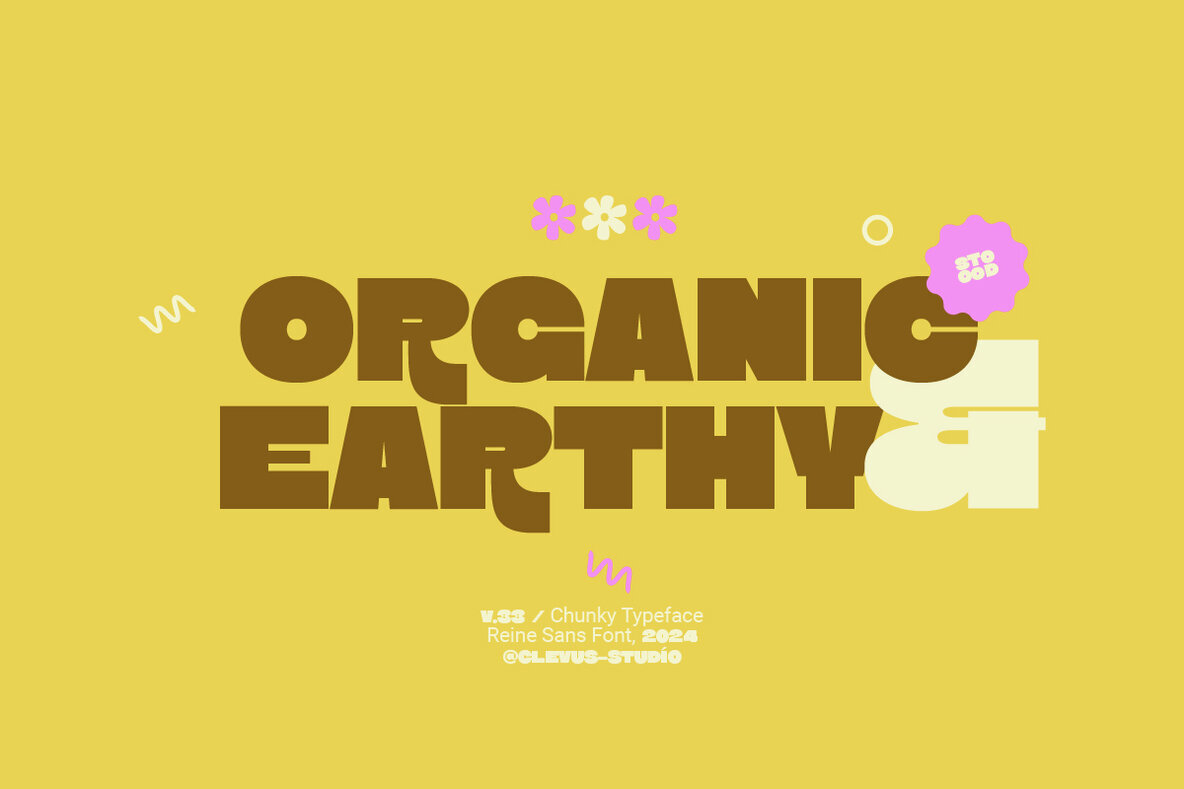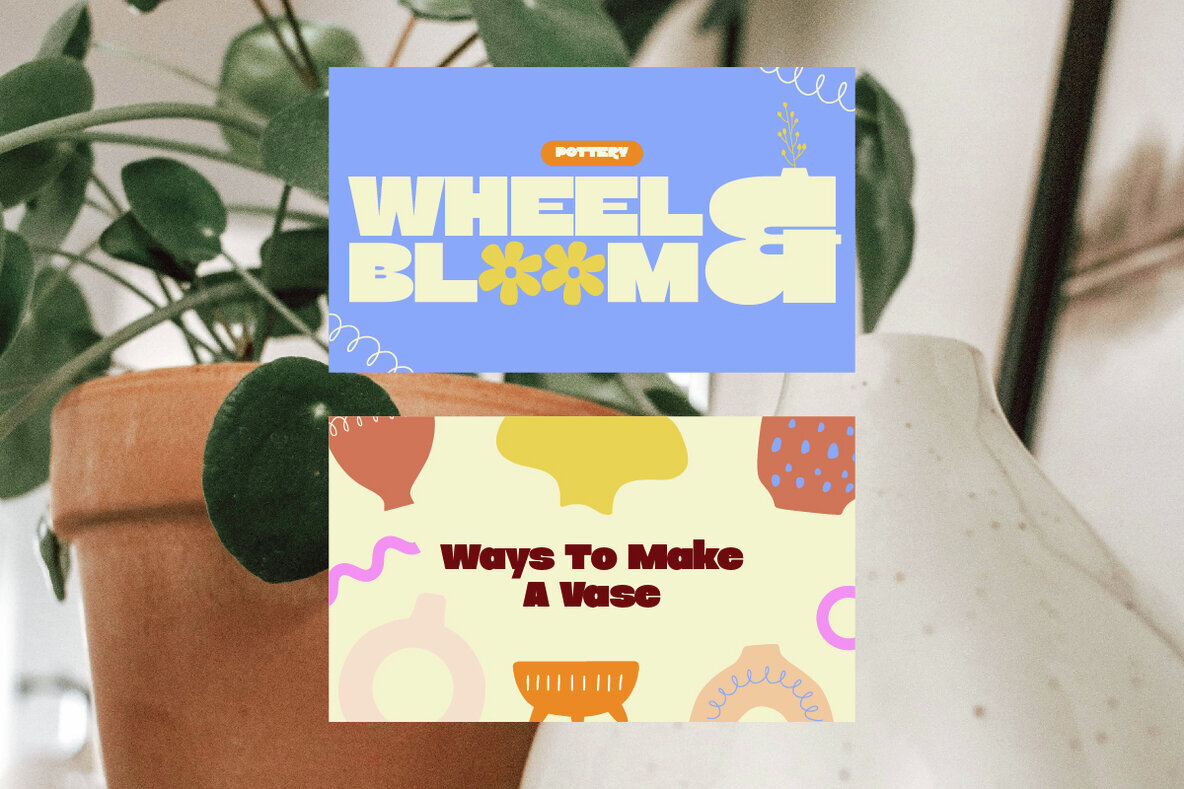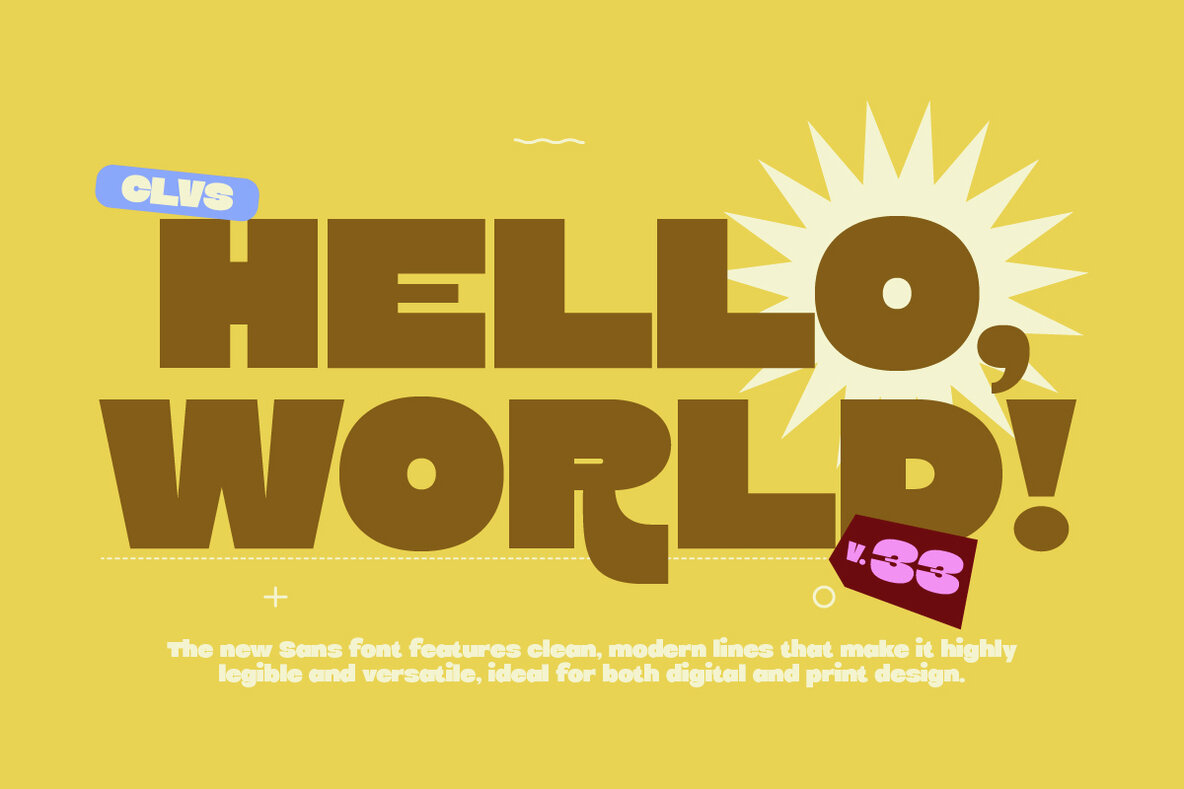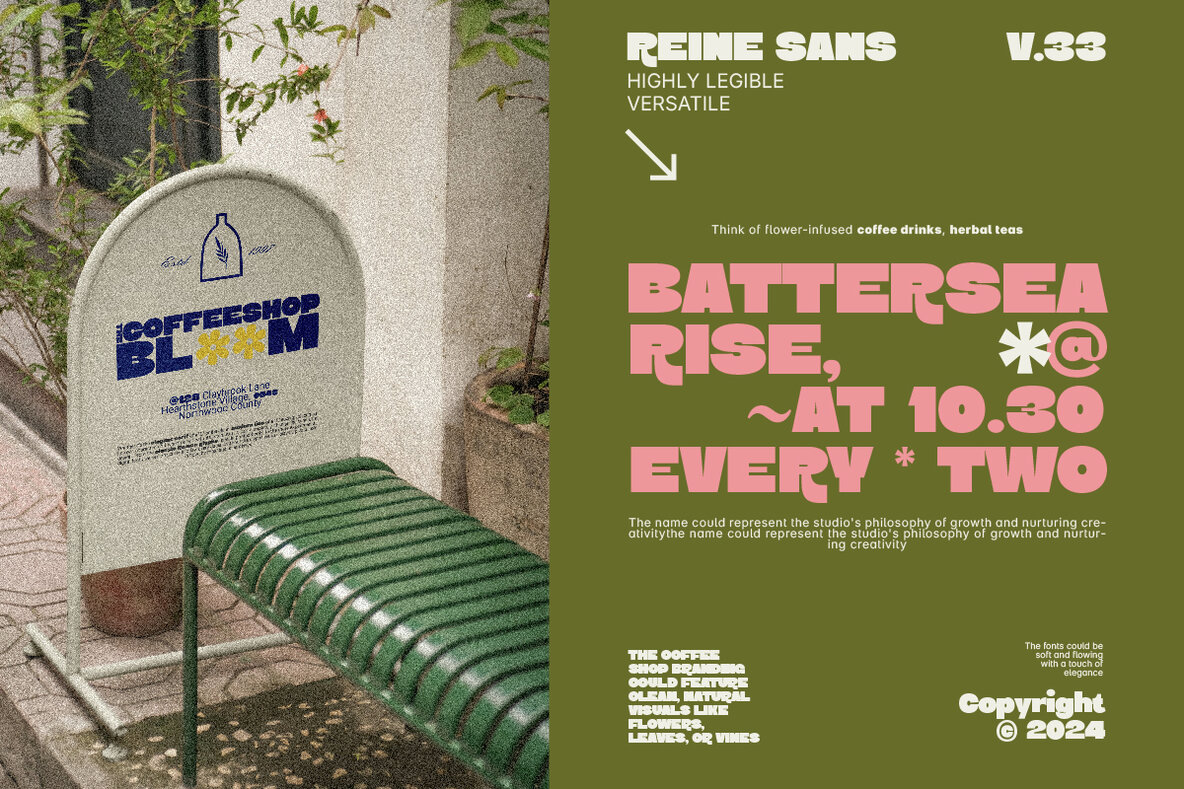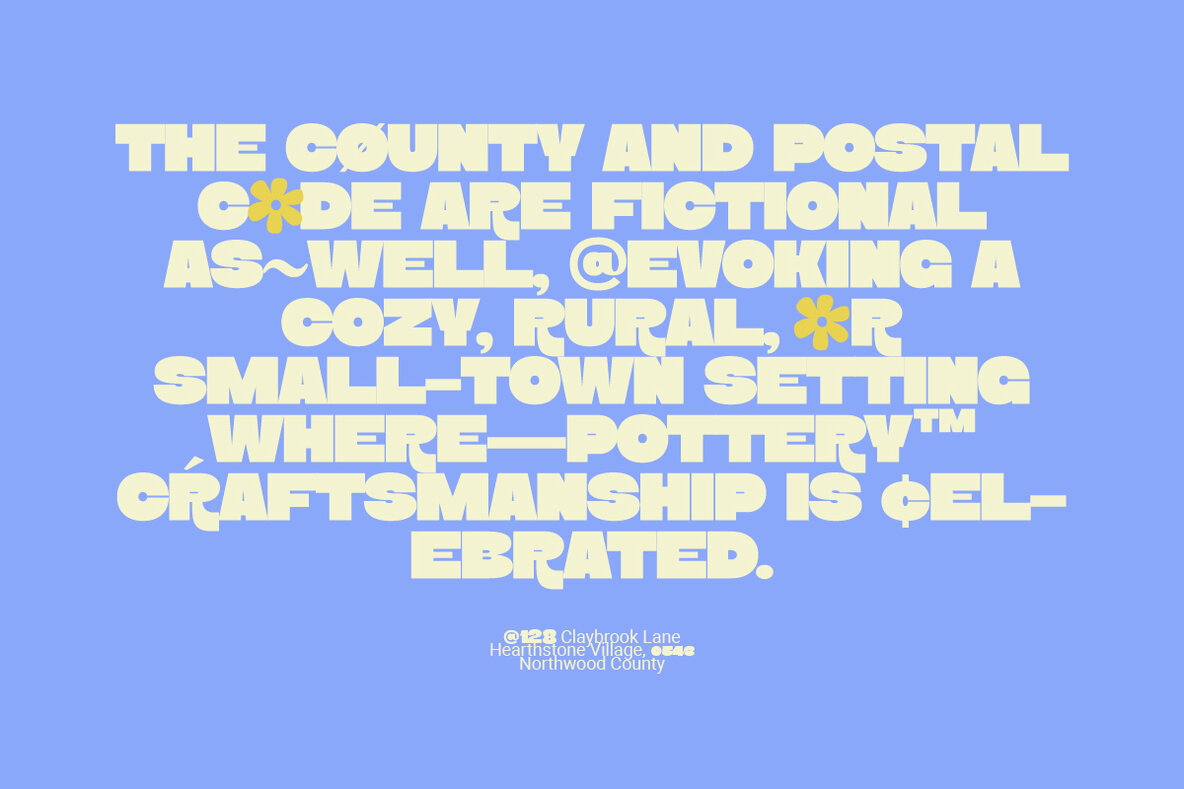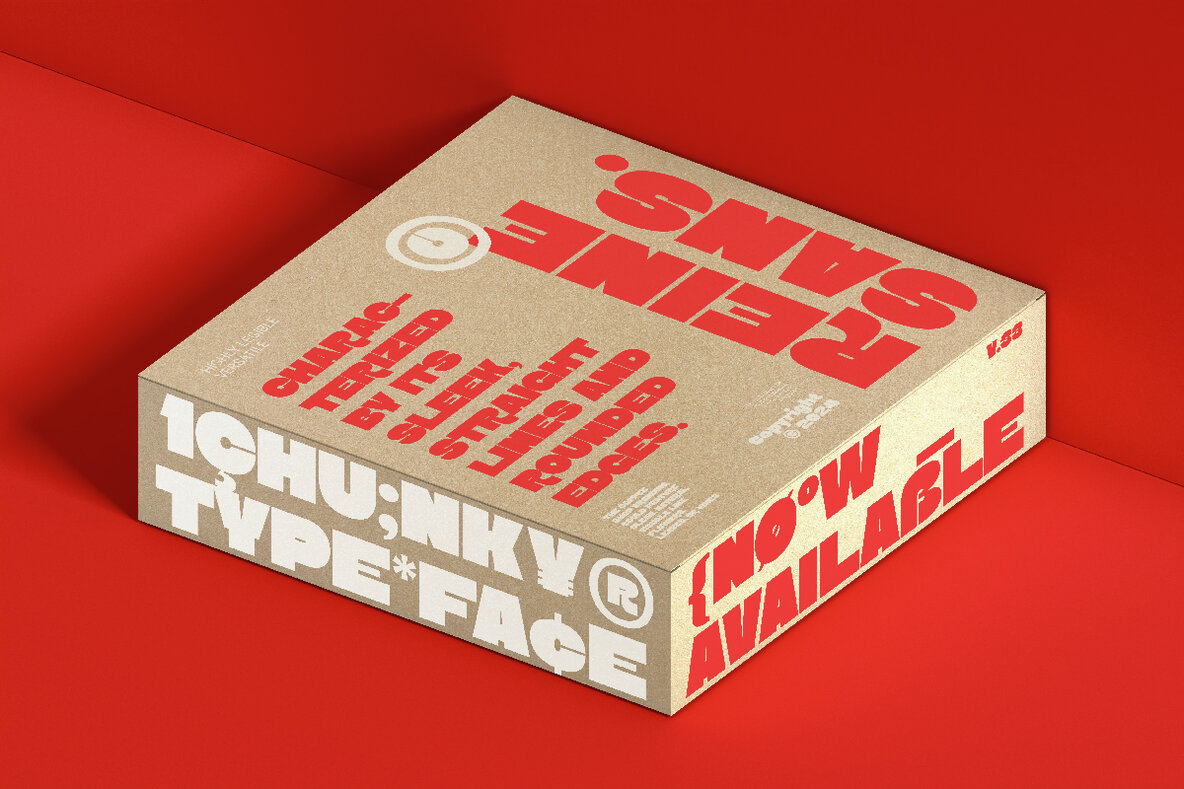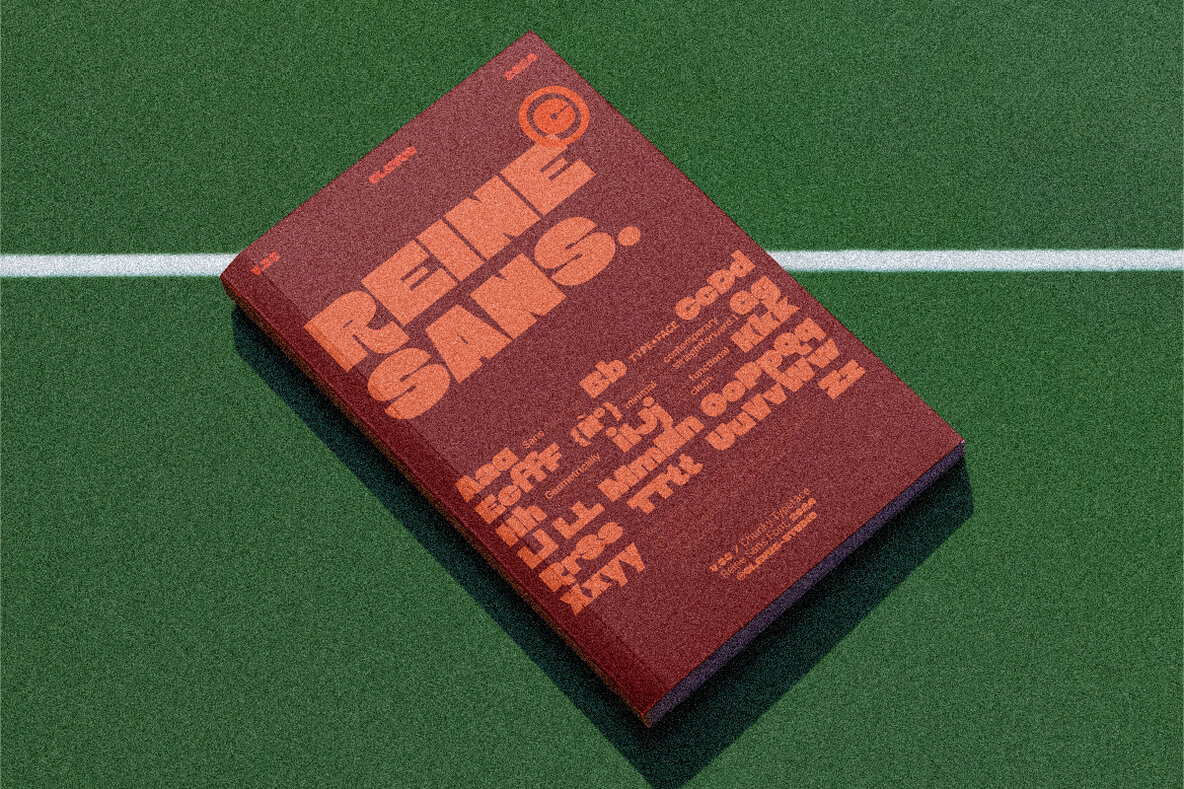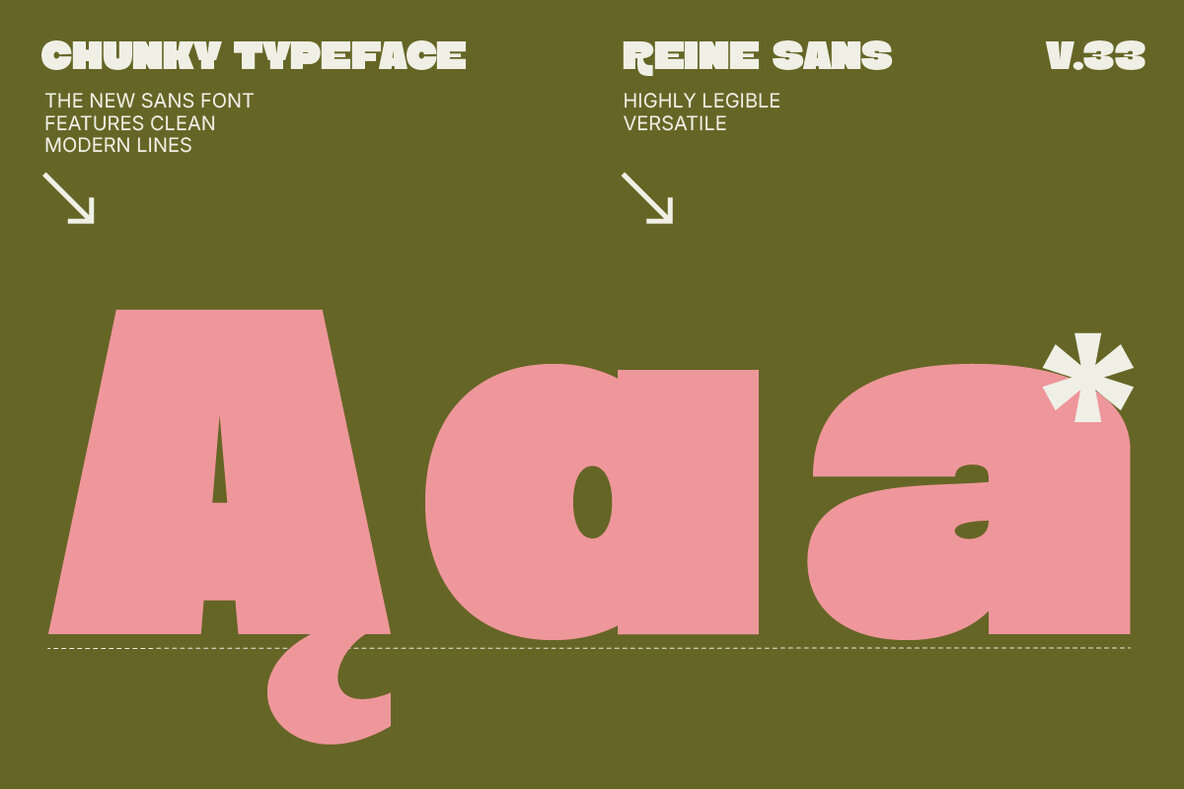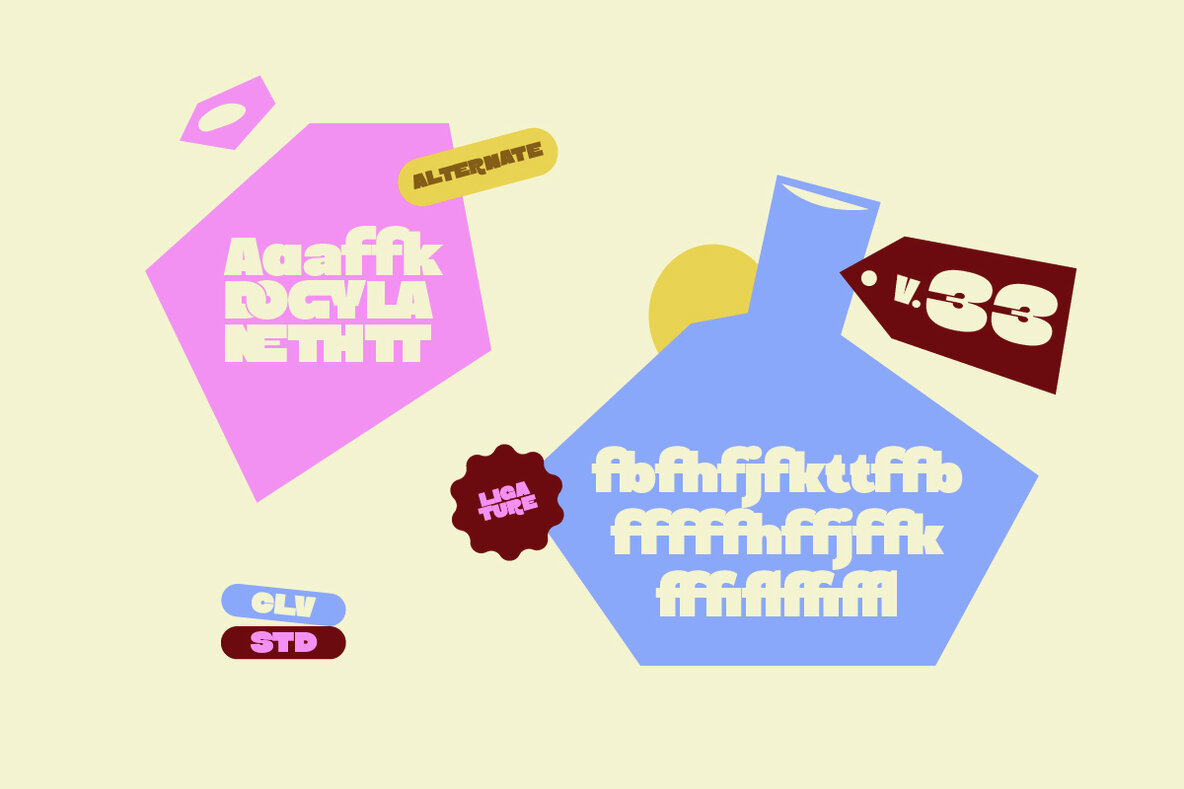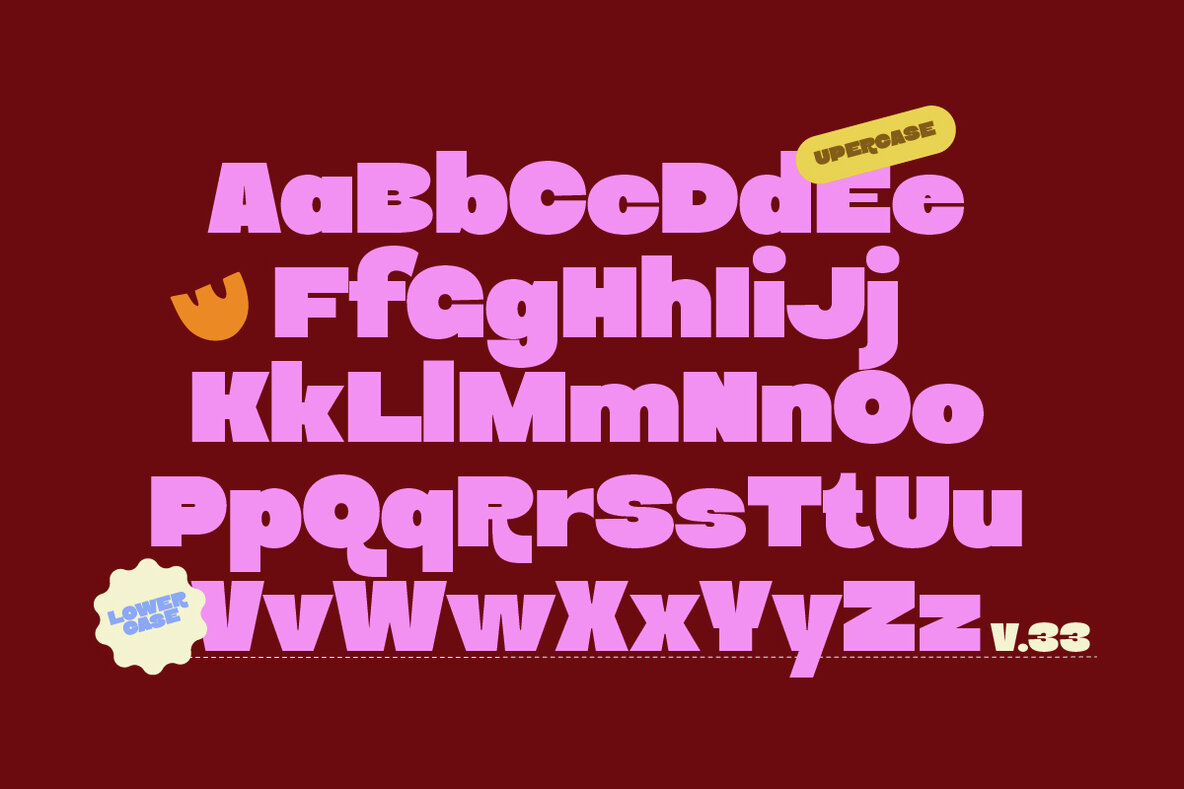
Reine Sans Font
Reine Sans Regular
Reine Sans introduces a playful, chunky, and bold typeface that's both engaging and charming. With its distinctively soft corners, Reine Sans strikes a balance between being bold and approachable, maintaining a friendly yet impactful appearance. The design embodies a sense of warmth and fun, making it perfect for projects that aim to capture attention with a touch of whimsy.
Ideal for digital and print materials, this font adds a fresh and youthful vibe to any creative work. Whether you’re designing logos, posters, or social media graphics, Reine Sans brings a lively and inviting character that stands out without overwhelming. Embrace its unique style and let Reine Sans infuse your designs with personality and flair.